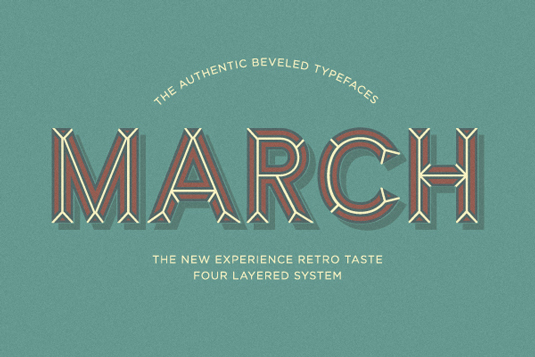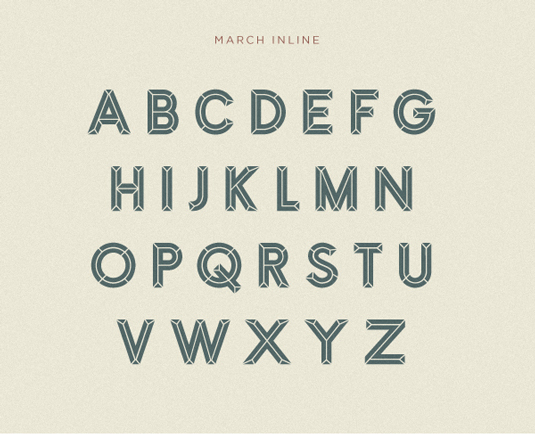
Font of the day: March
Every day we showcase the best fonts on the web. Today it's March by Gumpita Rahayu, which is free to download in exchange for a tweet!
March by Gumpita Rahayu
Today's font of choice is March by type designer Gumpita Rahayu. "Introducing March typeface, an authentic, bevelled font, adapted from old fashioned signage," says Rahayu on Behance.
March comes in two styles: outline and inline, the demo version of the latter Rahayu is generously offering as a free download in exchange for a tweet or Facebook share.